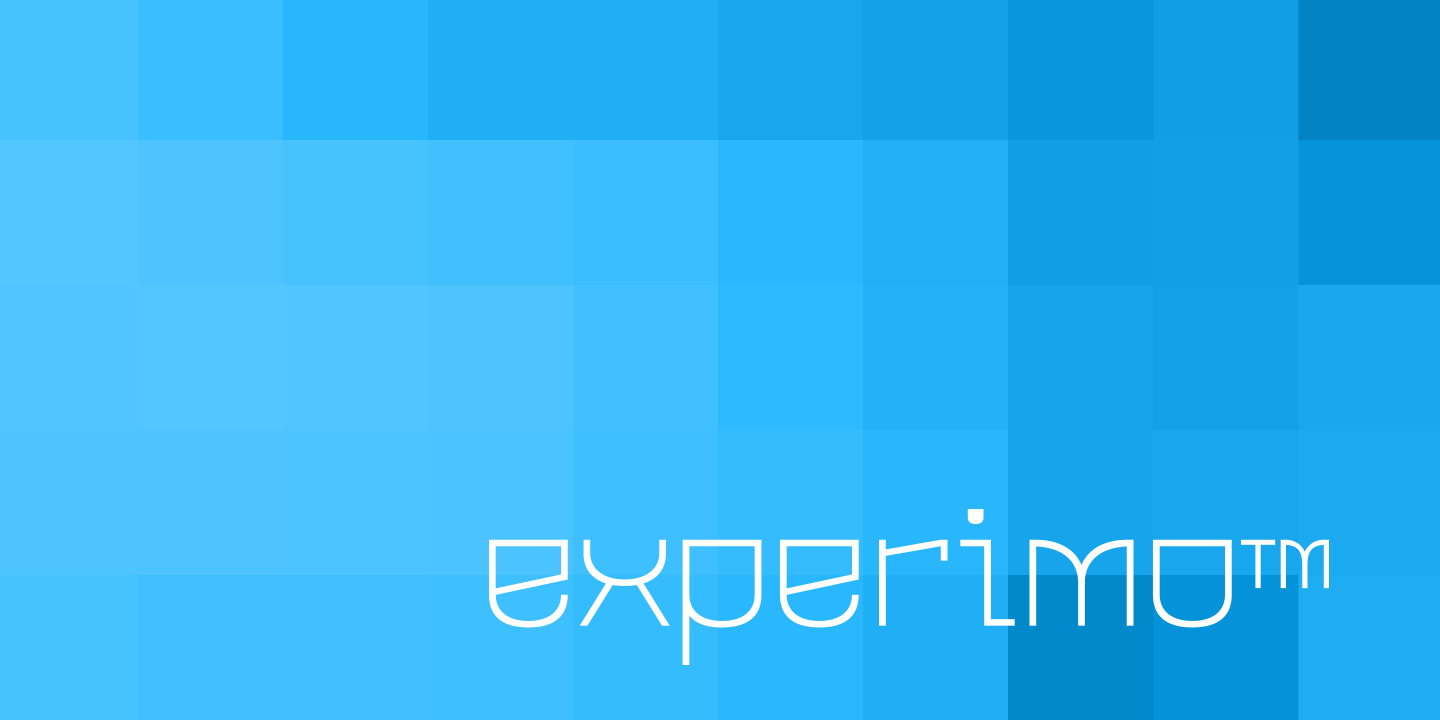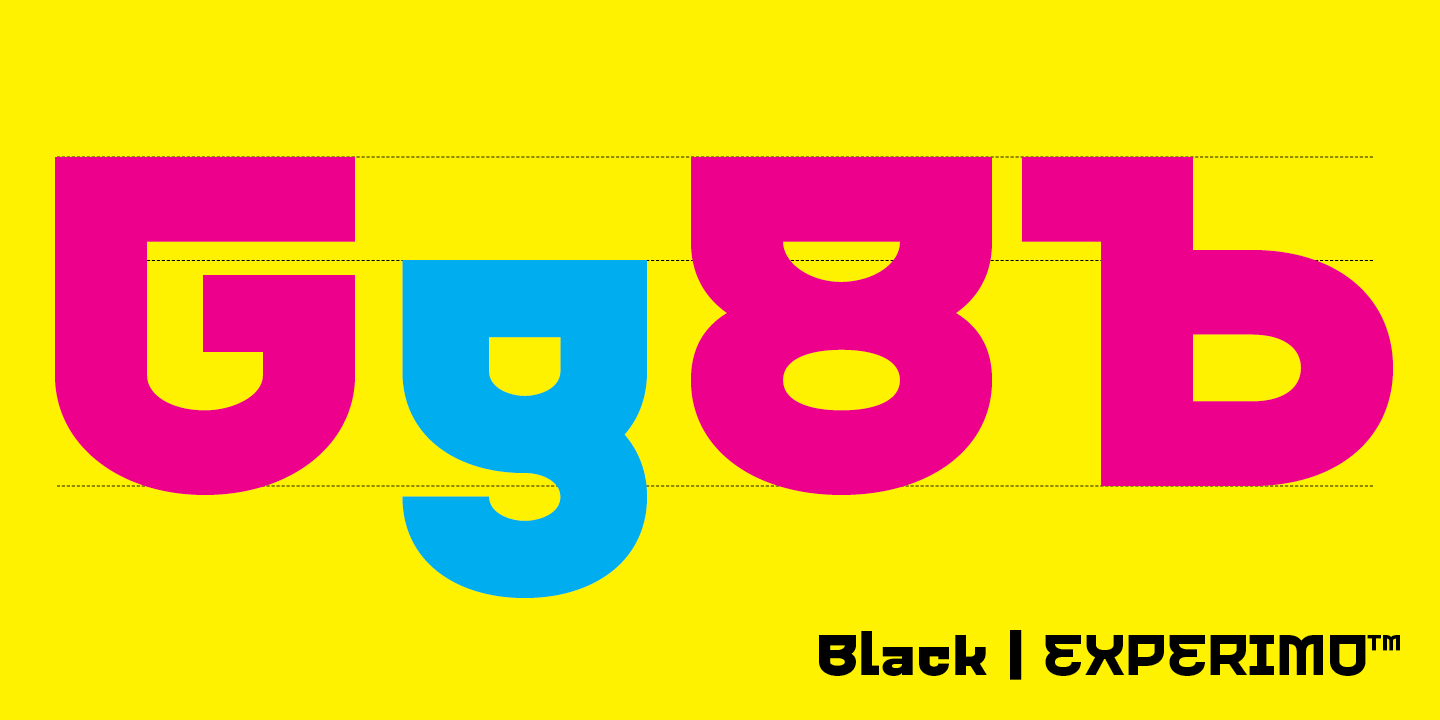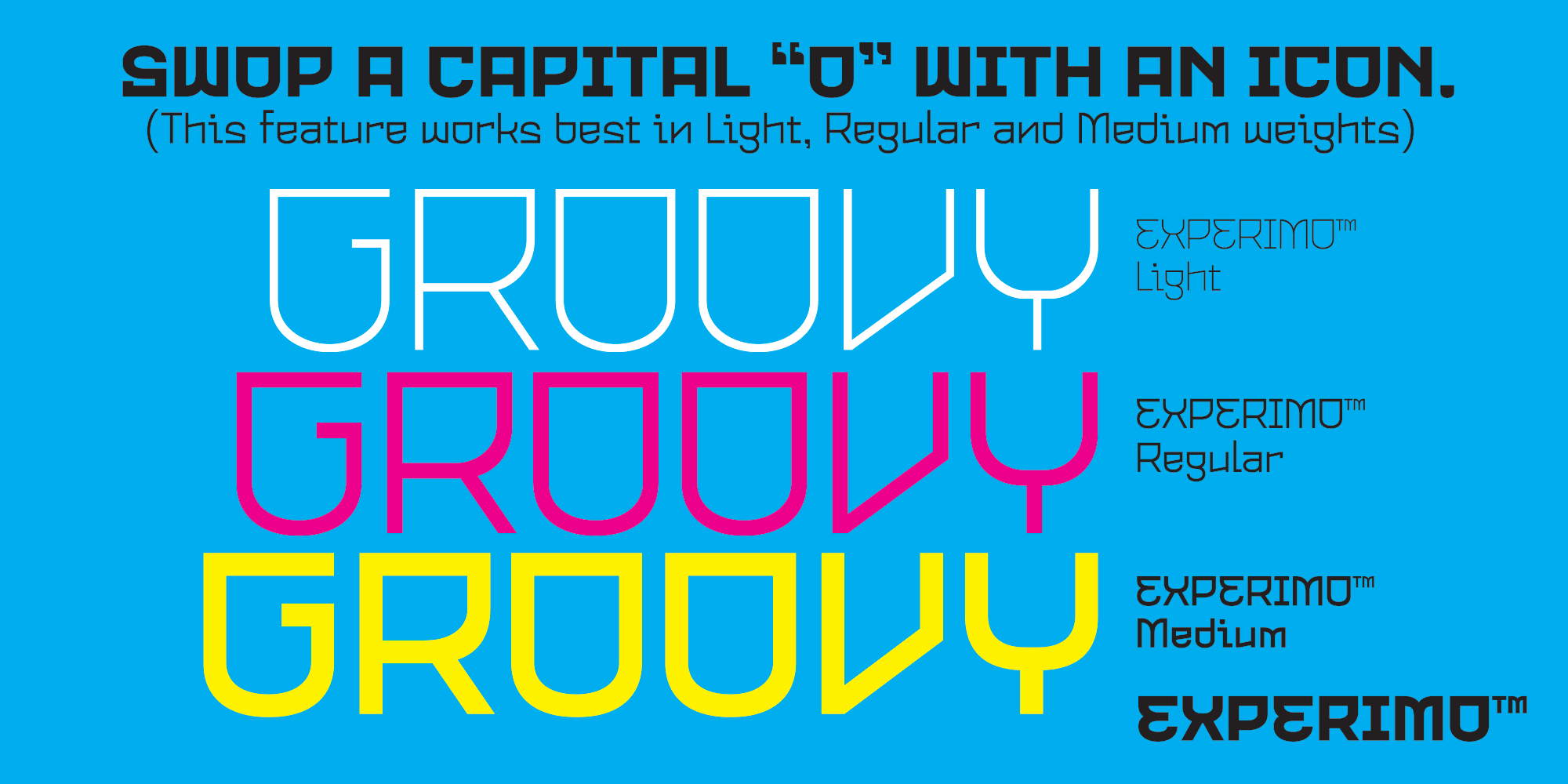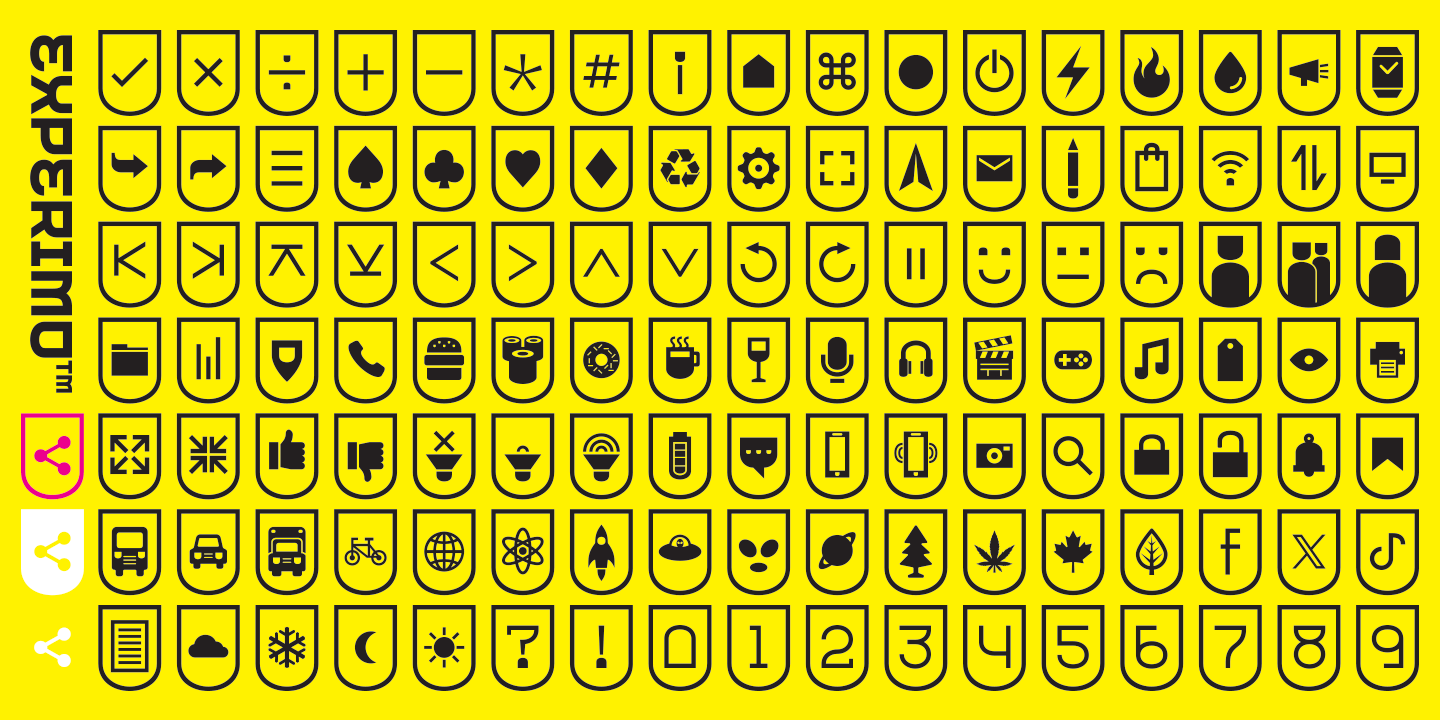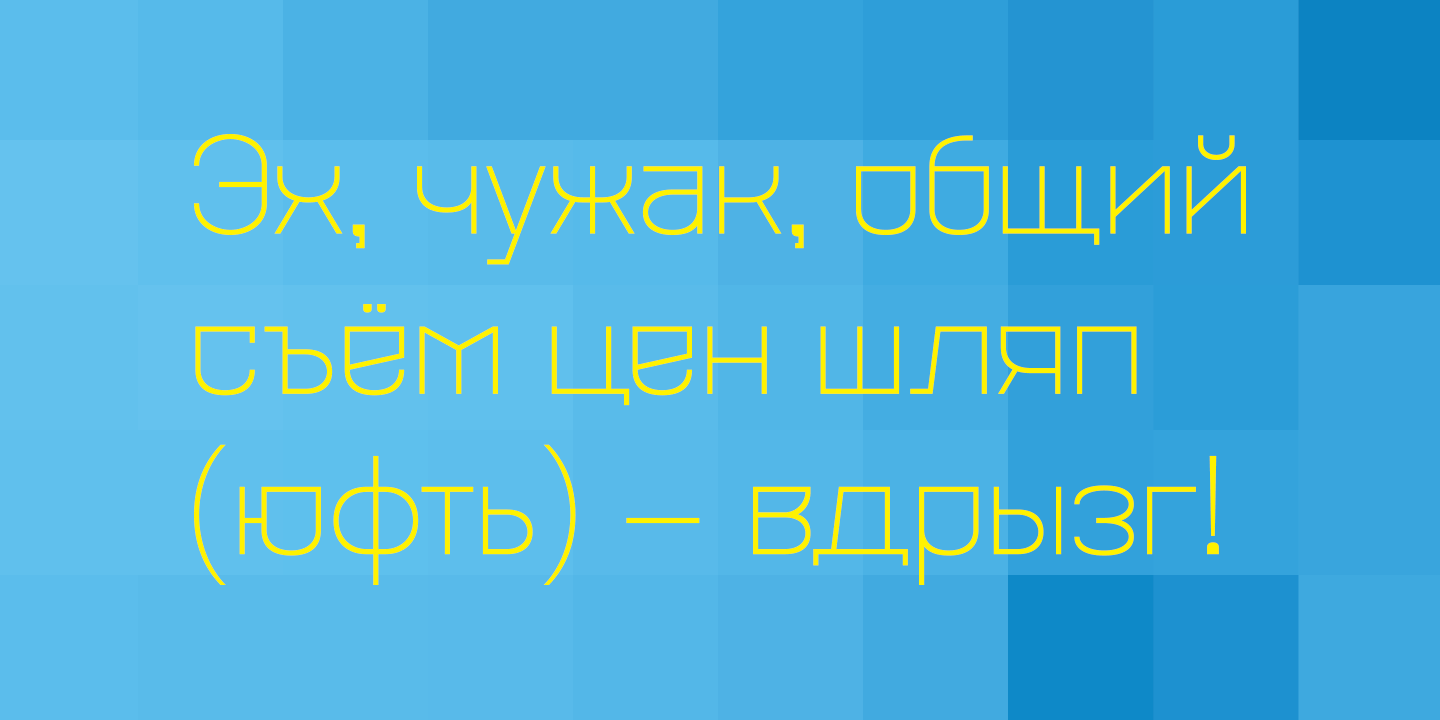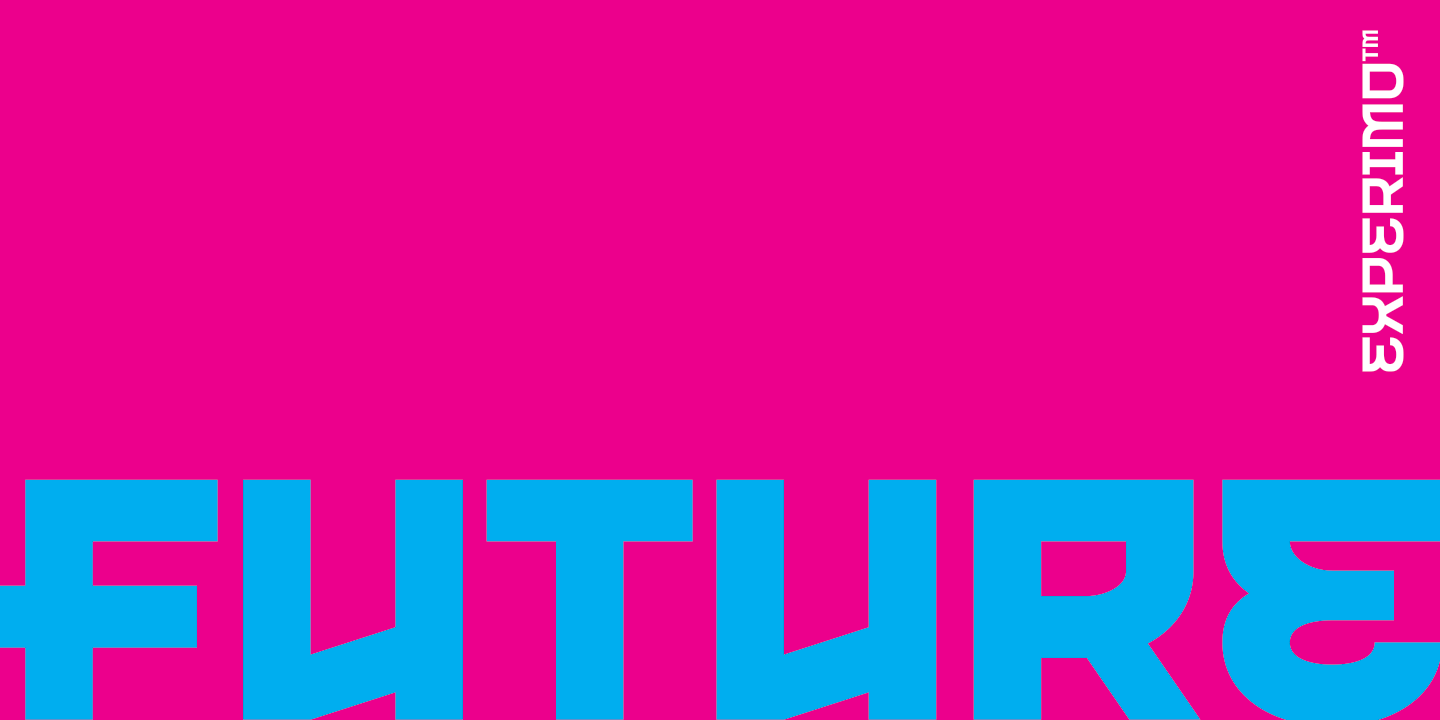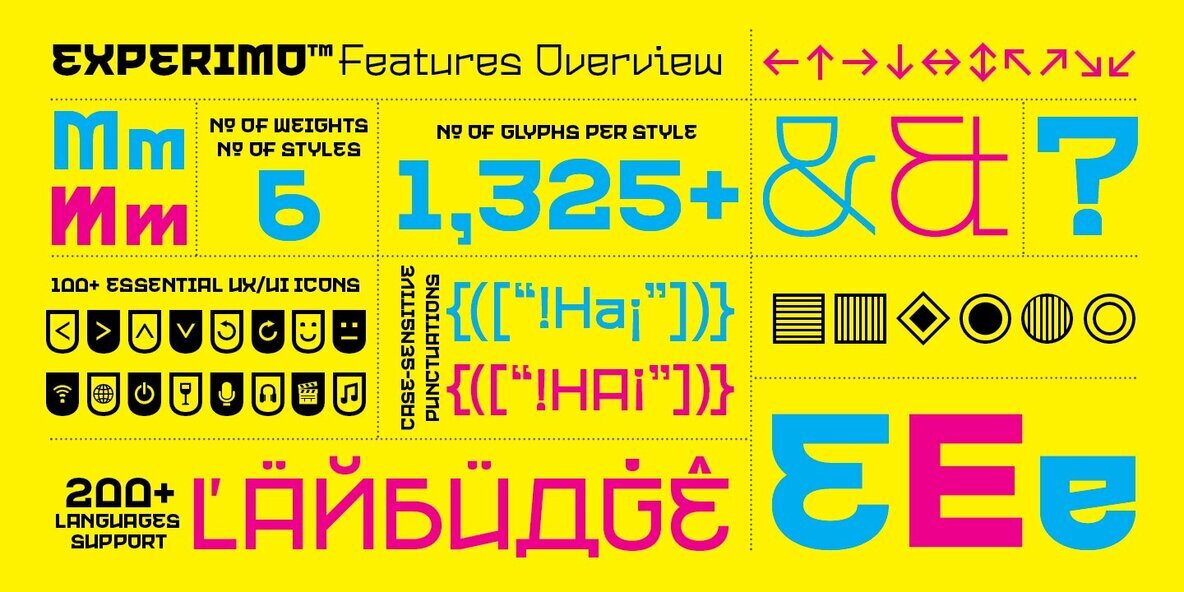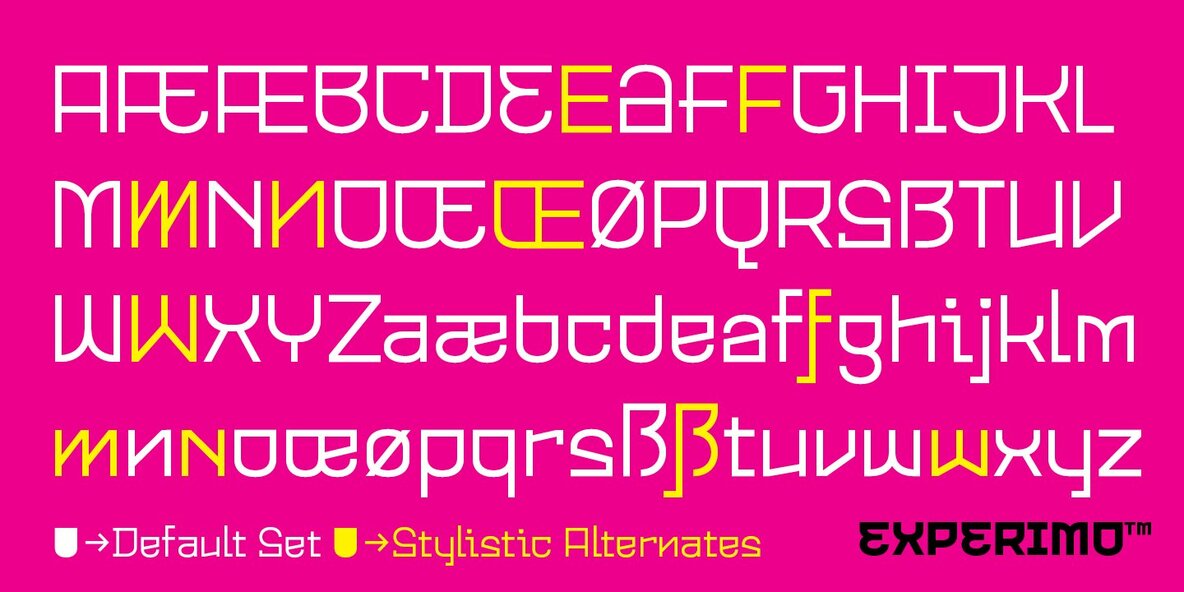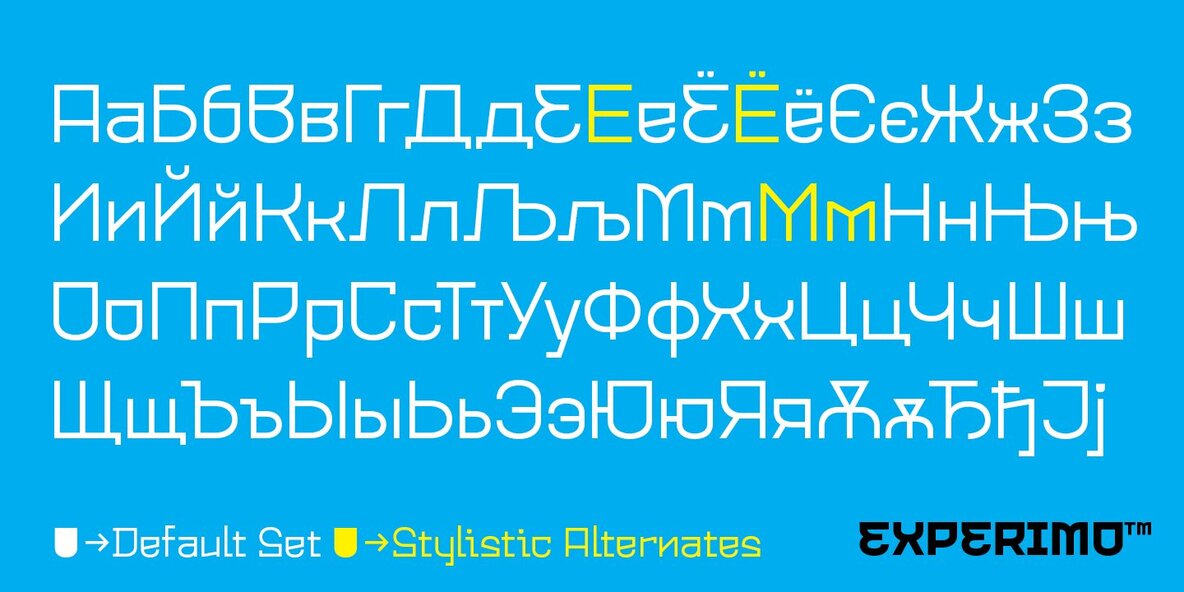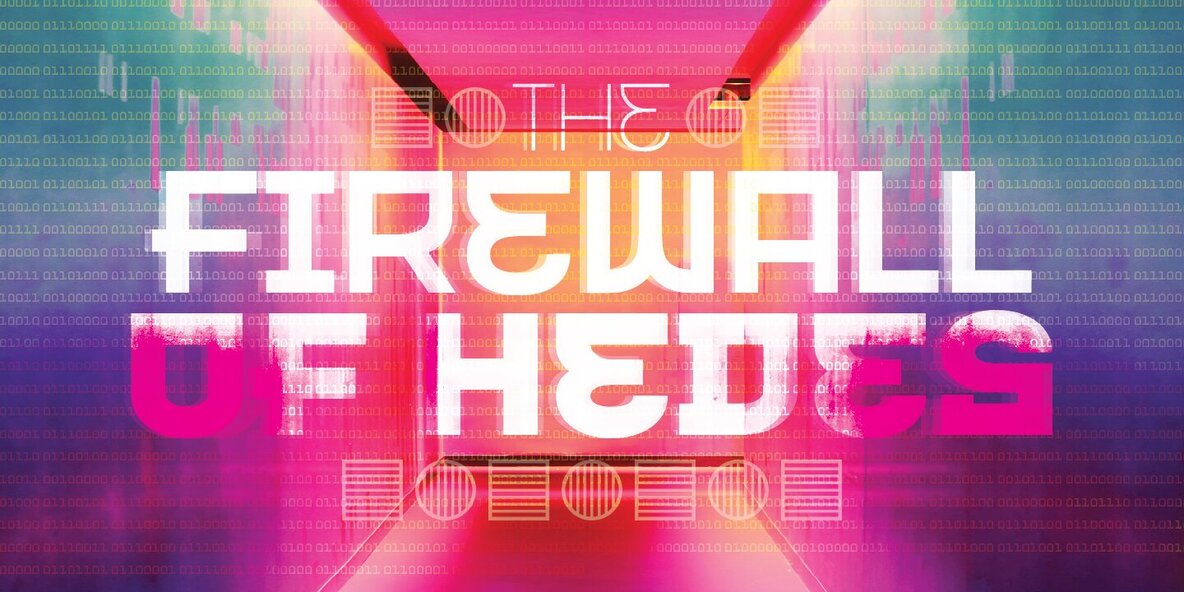
Experimo Font
Experimo is a contemporary display sans serif font family that combines unconventional geometry with the contrast of round and rectangular forms. Its playful structure and modern style create a bold presence, making it an ideal choice for projects seeking a forward-thinking aesthetic. Experimo offers an advanced typographic toolkit, built to support projects ranging from packaging and infographics to logos, film titles, and digital applications. Its comprehensive glyph set and Opentype capabilities provide design flexibility and efficiency, while the integrated UX/UI icons streamline digital workflow. For those seeking a typeface with edge and originality, Experimo holds a unique place in contemporary type design.Experimo – The Experimental Sans Serif for Distinctive Display
With six versatile weights and styles, Experimo adapts seamlessly from large-scale branding to detailed small text. It features an impressive collection of over 1,325 glyphs, supporting both Latin and Cyrillic languages. The font introduces a unique O-Substitution system, allowing the letter 'O' to be replaced by over 100 custom icons—adding a striking visual element to headlines and displays.Main Features